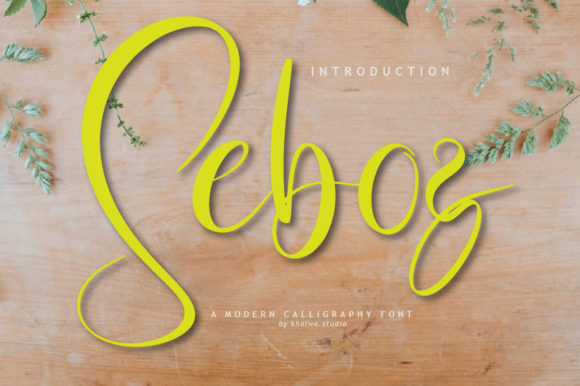
About Seboz Script Font
Seboz Script is a captivating and enduring handwritten font that encapsulates a sense of timelessness and charm. With its graceful strokes and elegant curves, this font is the ultimate option for crafting attention-grabbing logos, establishing a compelling brand identity, and infusing quotes with a touch of allure.
The beauty of Seboz Script lies in its ability to breathe life into your designs. Every letter is meticulously crafted, ensuring that each one possesses a distinctive and enchanting essence. This unique attention to detail adds a level of sophistication and authenticity to your creations, allowing your design to truly come alive.
Whether you’re embarking on a branding journey, seeking to enhance the visual impact of your logos, or aiming to infuse your quotes with a sense of elegance, Seboz Script delivers on all fronts. Its timeless aesthetic transcends trends and fads, making it a reliable choice that stands the test of time.
Seboz Script’s fluid and graceful characters seamlessly blend to form a harmonious visual experience. The font’s versatile nature enables it to effortlessly adapt to various design contexts, from sophisticated logos to captivating social media graphics. Its inherent ability to evoke emotions and convey messages with finesse makes it an indispensable tool for designers seeking to make a lasting impression.
With every stroke, Seboz Script showcases its enduring appeal and artistic flair. Its engaging presence invites viewers to immerse themselves in the visual narrative, fostering a genuine connection and leaving a memorable imprint. Whether used in elegant brand identities or evocative quotes, this font transforms ordinary designs into captivating works of art.
In conclusion, Seboz Script is a delightful and timeless handwritten font that exudes elegance and allure. Its unique and captivating letters elevate your designs, making it the perfect choice for logos, branding, and quotes that leave a lasting impact. Each character tells a story, and when woven together, they create a masterpiece that resonates with viewers and captures their imagination.